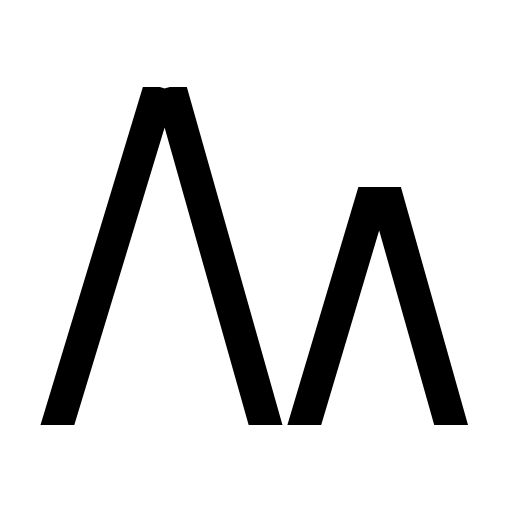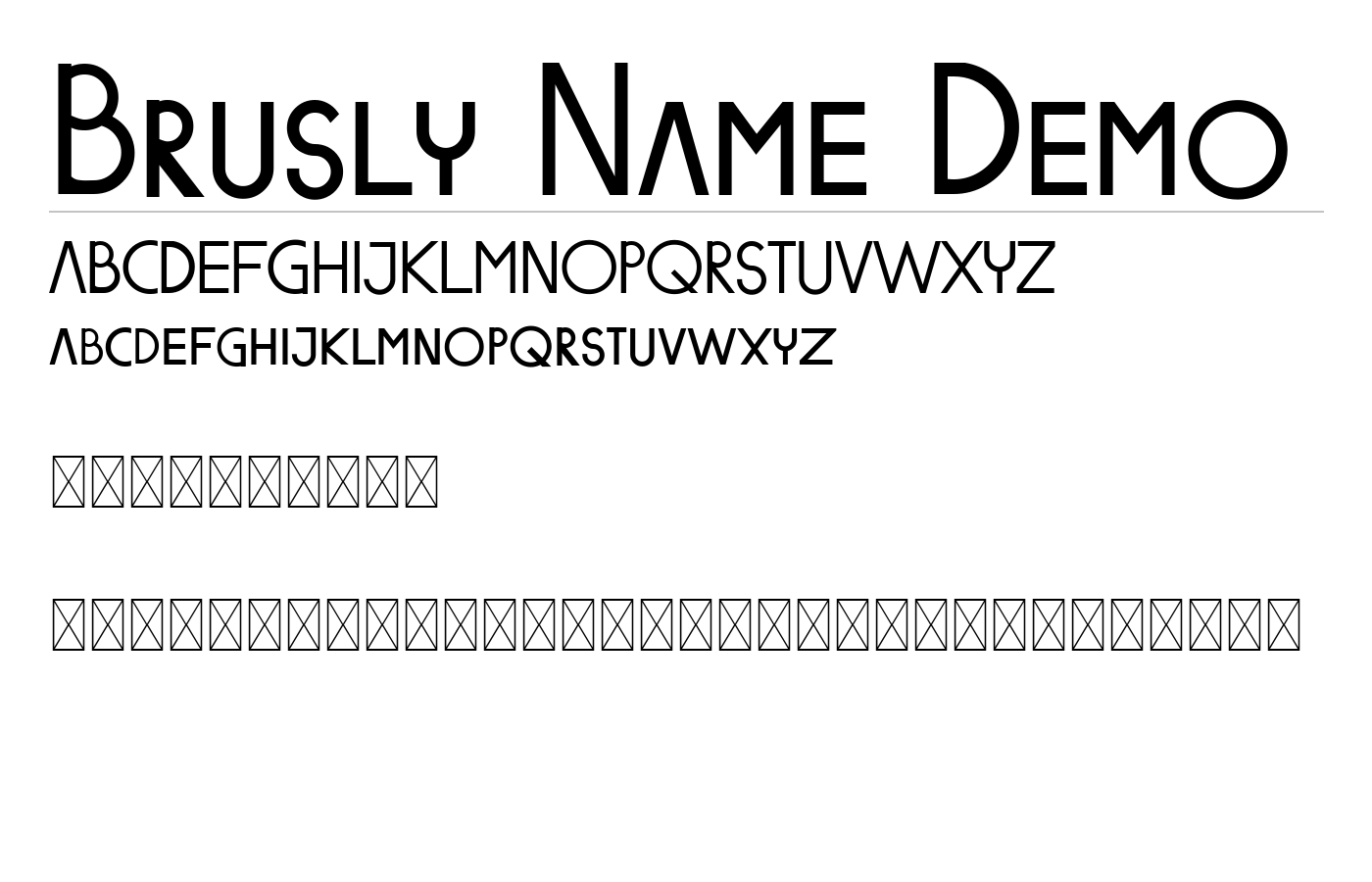
Brusly Name Demo is a clean, modern sans serif font with a distinctive geometric and slightly art deco style. Its tall, narrow letterforms with subtle angular details create an elegant yet contemporary feel, ideal for headlines, logos, and branding that seek a sophisticated and stylish look. This font works particularly well in fashion, editorial, and luxury contexts where a unique and refined personality is desired.
Brusly Name Demo Font
About Brusly Name Demo Font
| Font family | Brusly Name Demo Font |
| Designer | Deyan & Suci Anita |